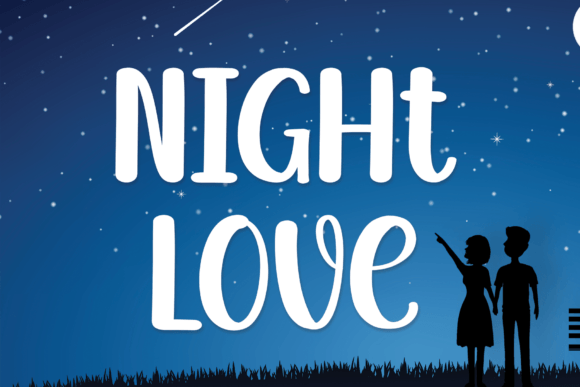
Behold, Night Love Font, a captivating script font that dances across the digital canvas with grace and charm! Specially crafted for beauty brands seeking a touch of elegance, this font is more than just a collection of glyphs — it's an embodiment of enchantment, a testament to visual allure. With its fluid strokes and playful curves, Night Love Font whispers tales of love, laughter, and the delicate beauty found in every moment.
Step into a realm where artistry meets functionality, where every letter is a brushstroke of creativity, and every word a symphony of visual delight. Night Love Font is your gateway to a world of enchanting designs, where your message will blossom into a captivating spectacle. Whether you're conjuring wedding invitations that evoke a timeless romance, adorning cards with heartfelt sentiments, or weaving your creative magic into logos and branding, Night Love Font will be your trusted companion.
Unleash the font's inherent power to evoke emotions, to touch hearts, and to leave an indelible mark on the minds of your audience. Night Love Font is not merely a font; it's an experience, an invitation to immerse oneself in a realm of aesthetics and artistry. With its effortless ability to capture the essence of beauty, it will transform your designs into captivating masterpieces, leaving your customers spellbound and yearning for more.
Embrace the magic of Night Love Font, let its enchanting strokes dance across your digital canvas, and watch as your creations blossom into breathtaking works of art. Let your designs radiate with a charm that is both timeless and captivating, a testament to the enduring power of beauty.